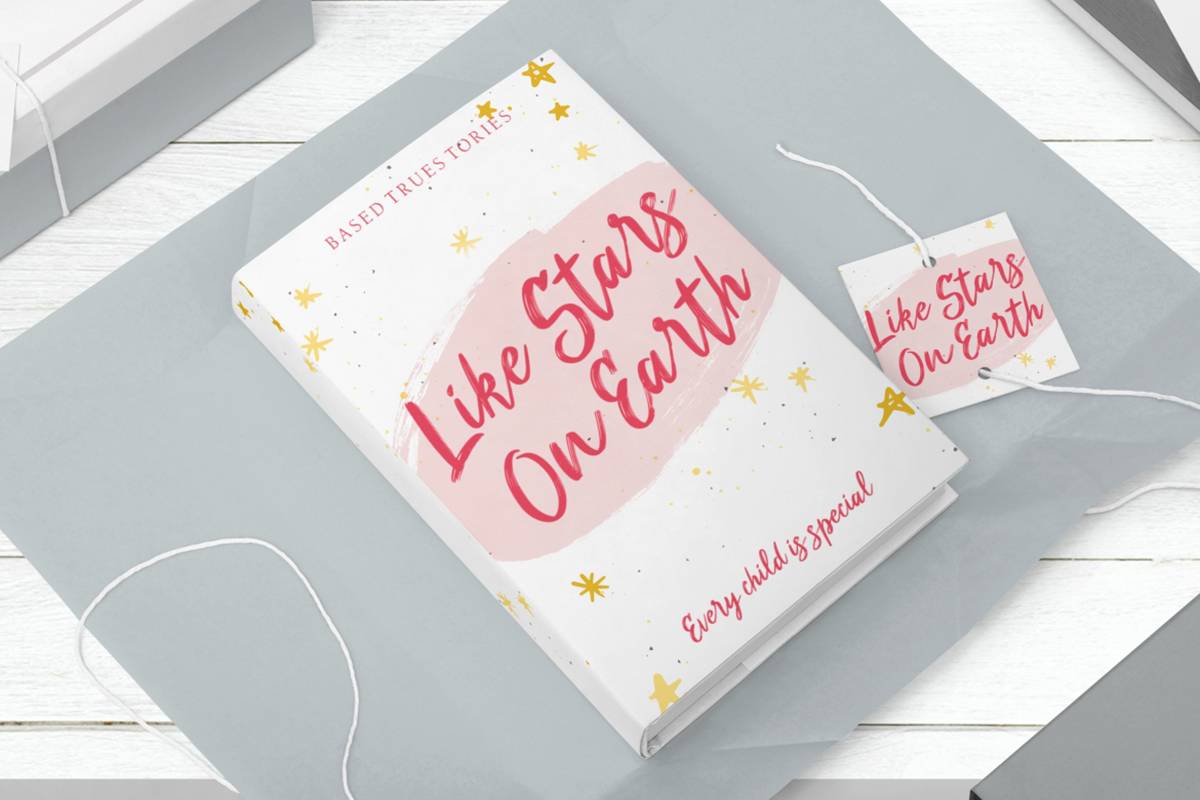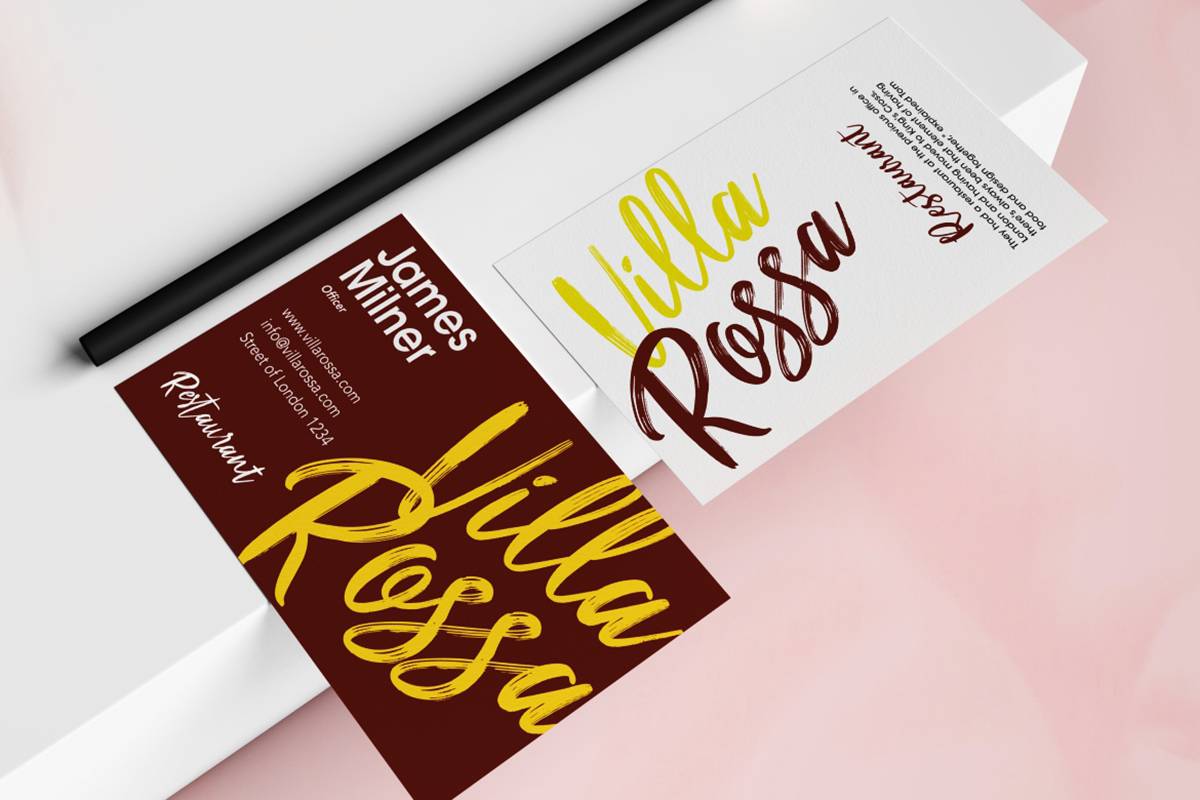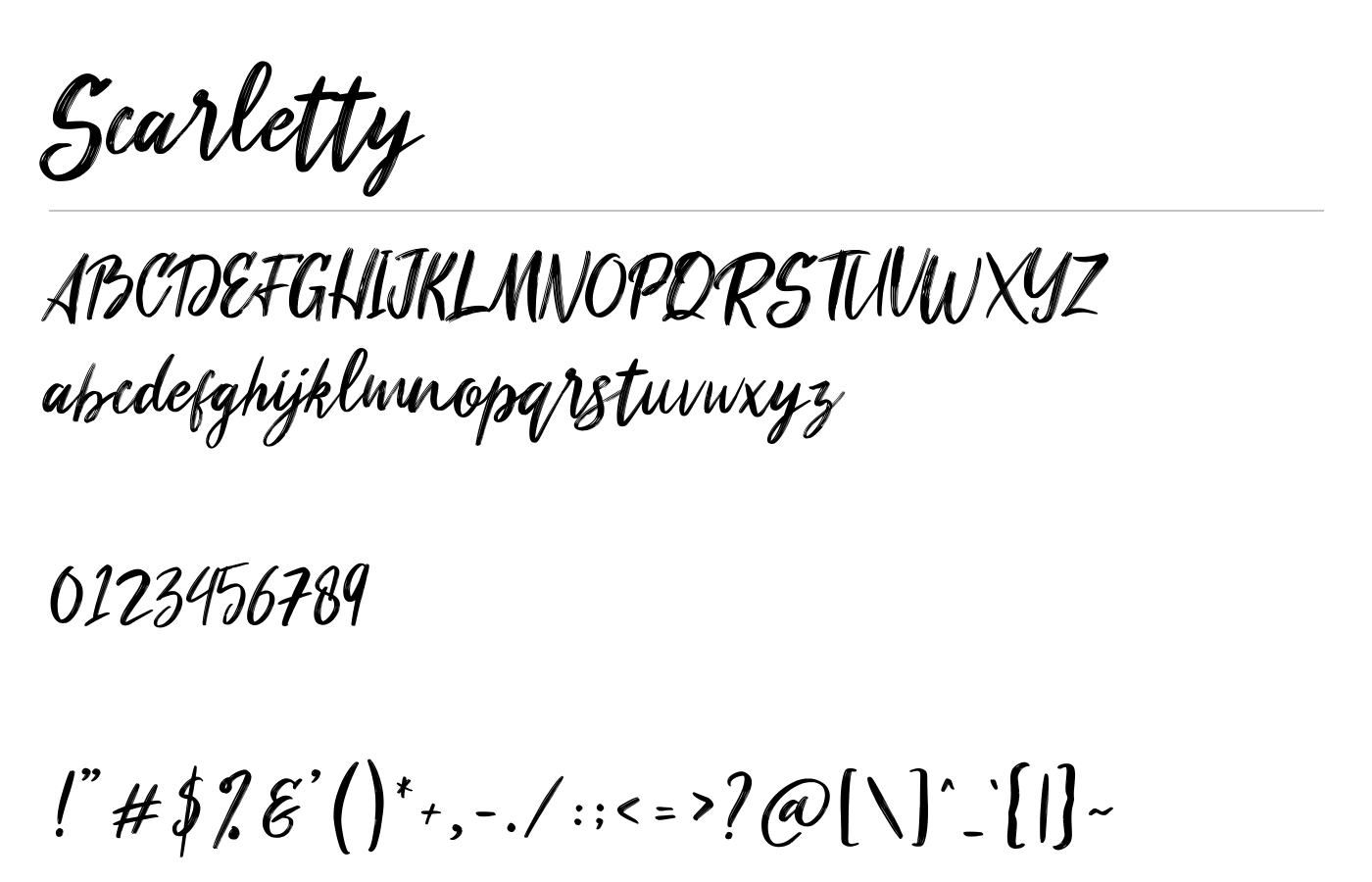
Scarletty is a lively and elegant script font that mimics natural brush lettering with its smooth, flowing strokes and moderate contrast. Its casual yet refined style makes it perfect for adding a personal, artistic touch to branding, invitations, and creative projects where a modern, handwritten feel is desired. This font works well in headlines and logos, capturing attention with its vibrant personality and readable, stylish letterforms.
Scarletty Font
About Scarletty Font